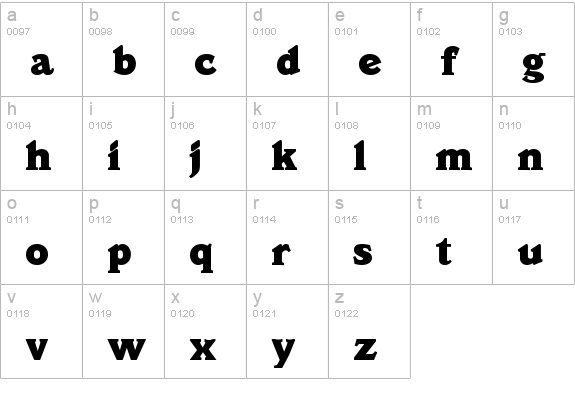
VeracruzSerial-Heavy-Regular is a heavy, high-impact variant in the VeracruzSerial typeface family \xE2\x80\x94 well suited to high-impact headlines, posters, and display advertising.
VeracruzSerial-Heavy-Regular is a bold and eye-catching font that exudes confidence and strength. With its thick strokes and clean lines, this typeface is perfect for making a statement in headlines, titles, and branding materials. The versatility of VeracruzSerial-Heavy-Regular allows it to be used in a variety of design projects, from posters to logos to packaging. The best part? VeracruzSerial-Heavy-Regular is available for free download at FontsMarket.com. This means you can add this powerful font to your collection without any cost, making it an excellent choice for both personal and commercial use. Don't miss out on the opportunity to enhance your designs with the striking presence of VeracruzSerial-Heavy-Regular. Download it now and let your creativity shine!